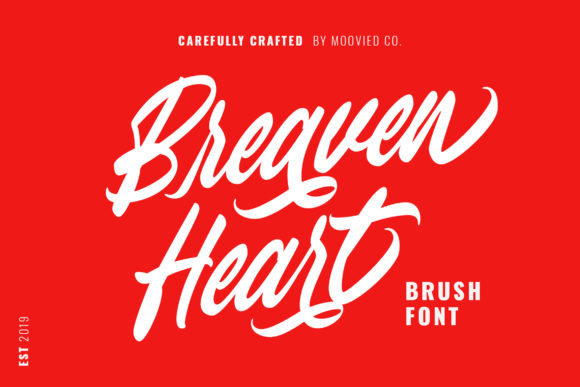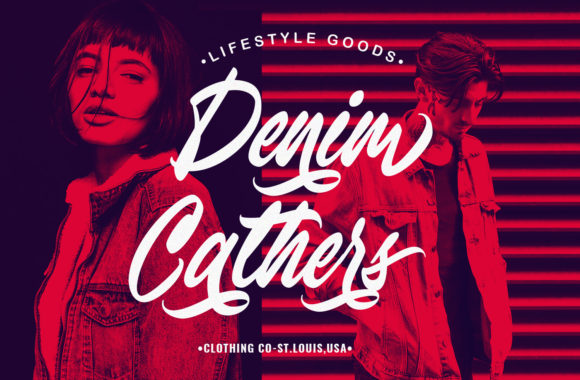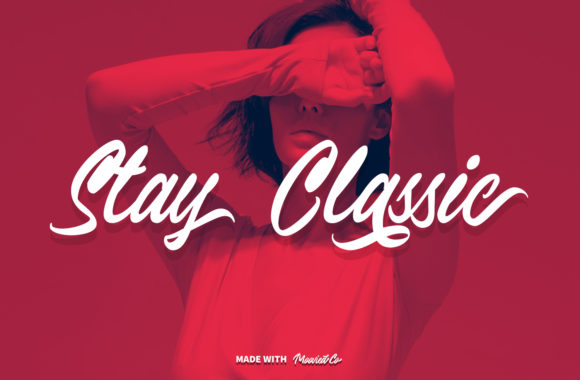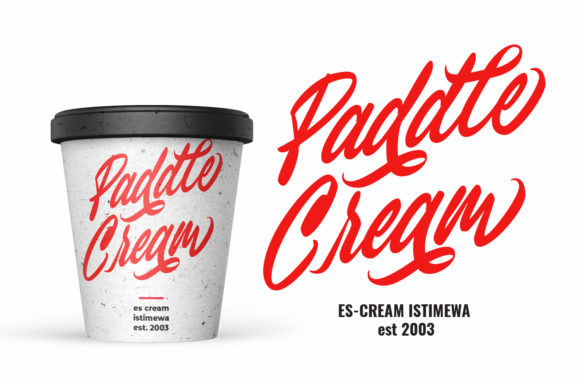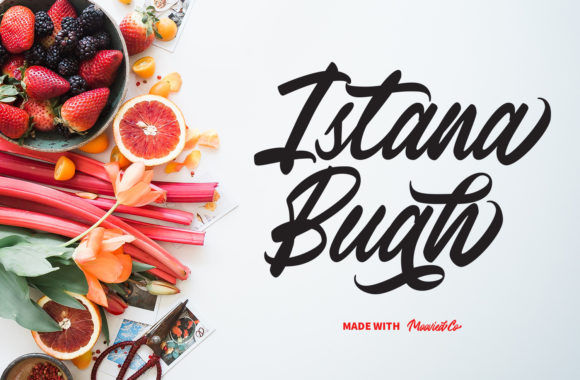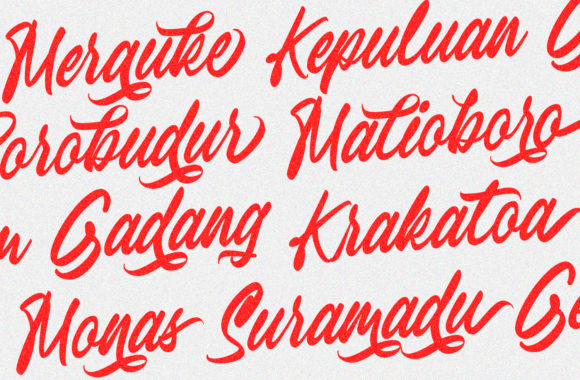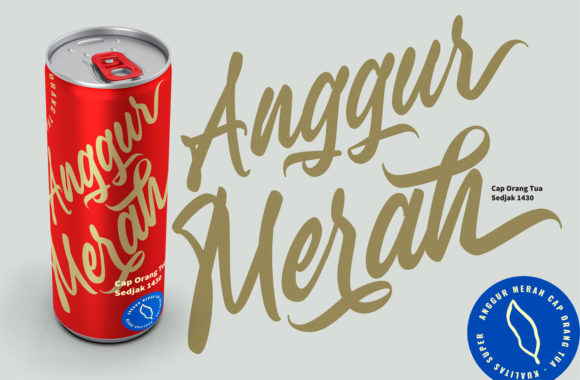
Bravenheart Font
About Bravenheart Font
Bravenheart is a beautiful and carefully designed handwritten font that will turn any design project into a stand out with its bold and authentic charm.